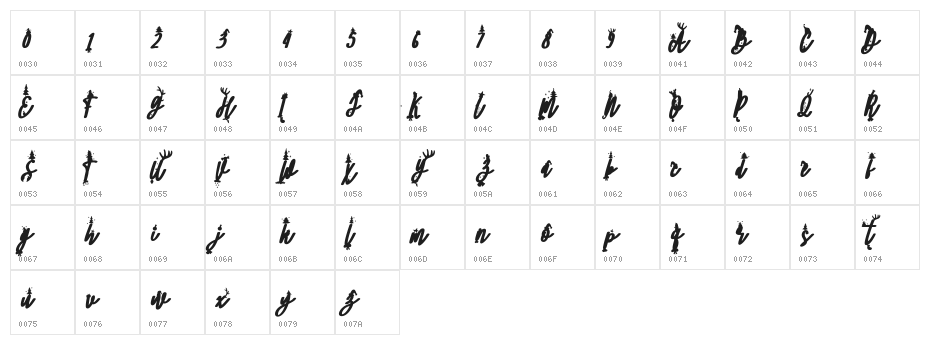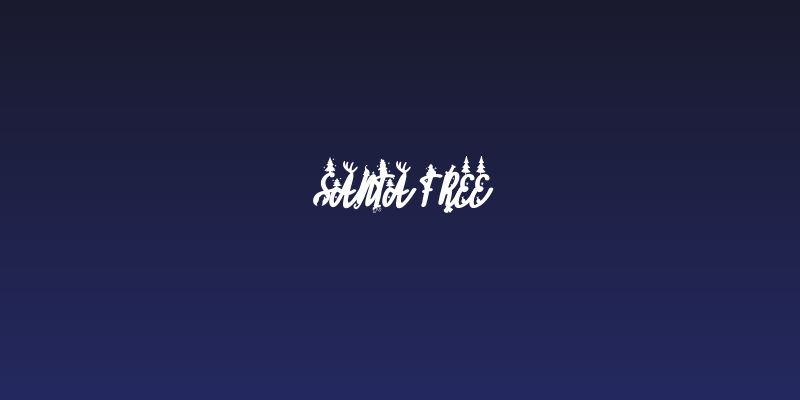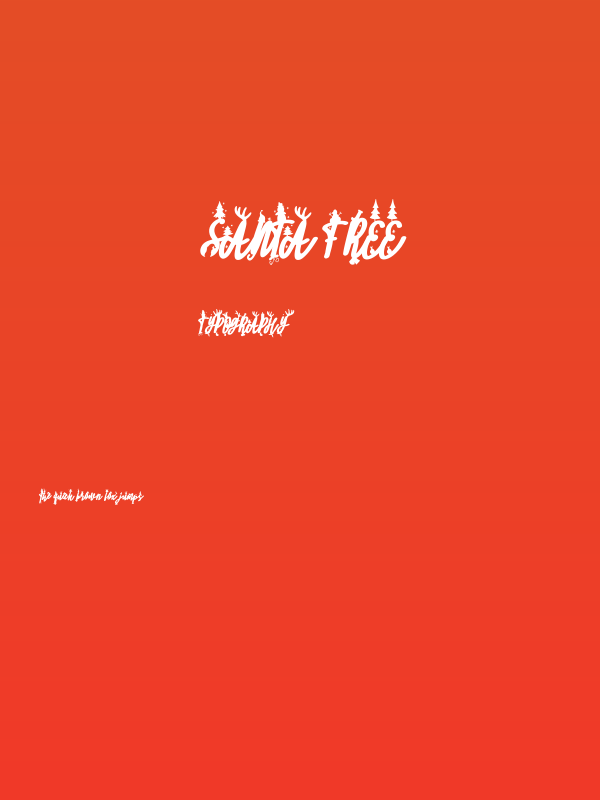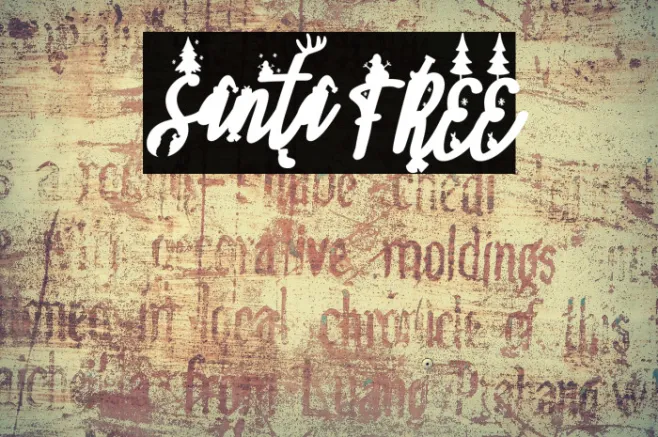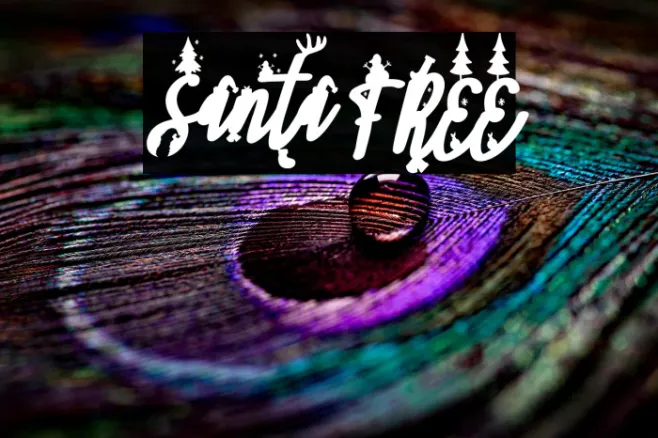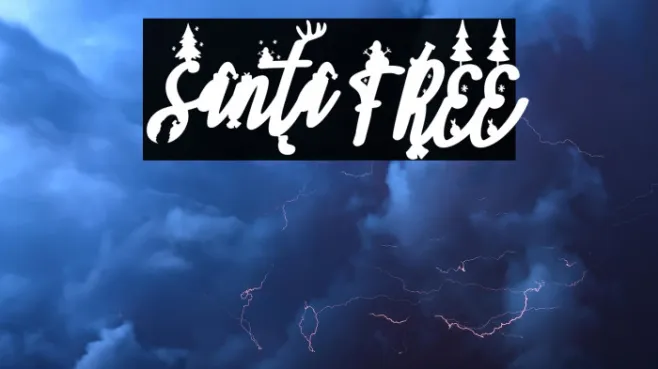
Santa FREE Font
Santa FREE Description
This festive font is characterized by its playful and decorative style, incorporating holiday-themed elements such as antlers and Christmas trees into the design of each letter. The uppercase and lowercase letters are creatively adorned with these elements, giving the font a whimsical and seasonal appearance. The strokes are bold and flowing, with a script-like quality that adds to its charm. The numbers and special characters are similarly styled, maintaining the cohesive holiday theme throughout the set. This font is perfect for adding a touch of holiday spirit to any project.